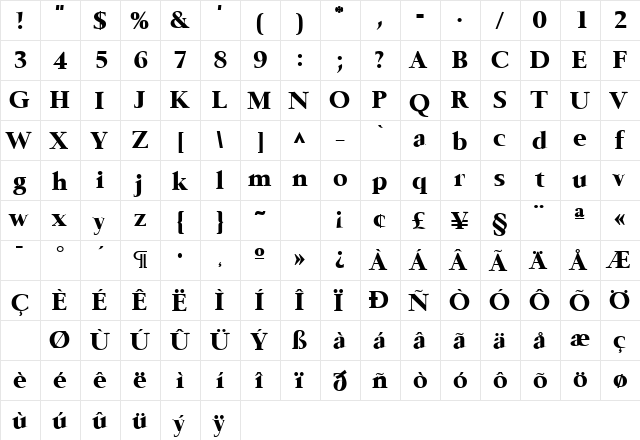
Bering Regular
Design Context for Bering Typeface
Bering offers clean, dependable letterforms without strong stylistic allegiance, making it a practical choice for designers who need flexibility.